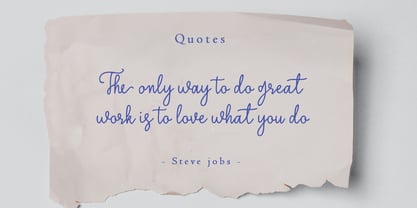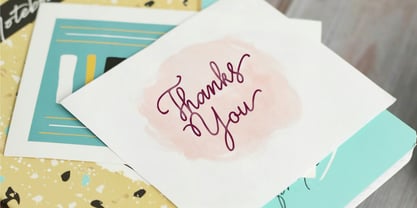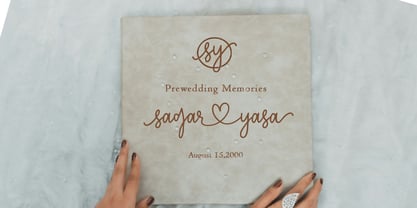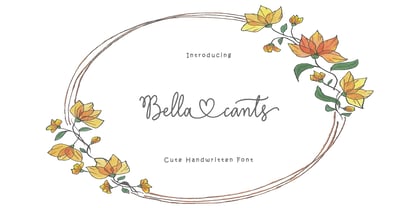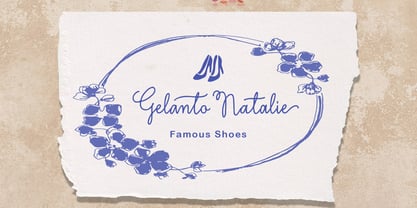
Bella cants
by Sulthan Studio
The Bella cants Font Family was designed by Nasrullah and published by Sulthan Studio. Bella cants contains 1 styles. More about this family
Bella cants handwritten font is very cute with lots of ligatures and also cute front and back swashes plus the heart swashes that can be connected make it look perfect for use anywhere such as wedding invitations, business cards, logos or making trademarks and many more uses that will definitely add a cheerful nuance to your work.
Designers: Nasrullah
Foundry: Sulthan Studio